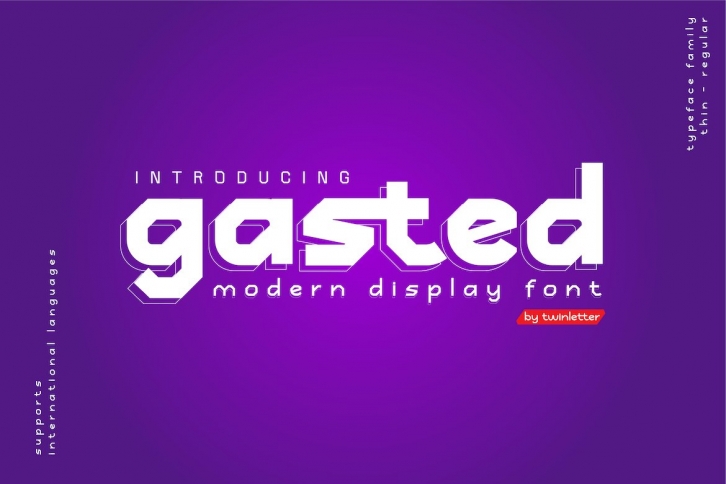
Gasted is a beautiful font that was designed by twinlettertype. It's a great choice for designers and creatives who need such a font. It was released on March 13, 2021 and the file size is 5.3 MB. Gasted may give a more youthful, expressive and casual look to your project. It is a very beautiful, refined, elegant, and high-quality font.